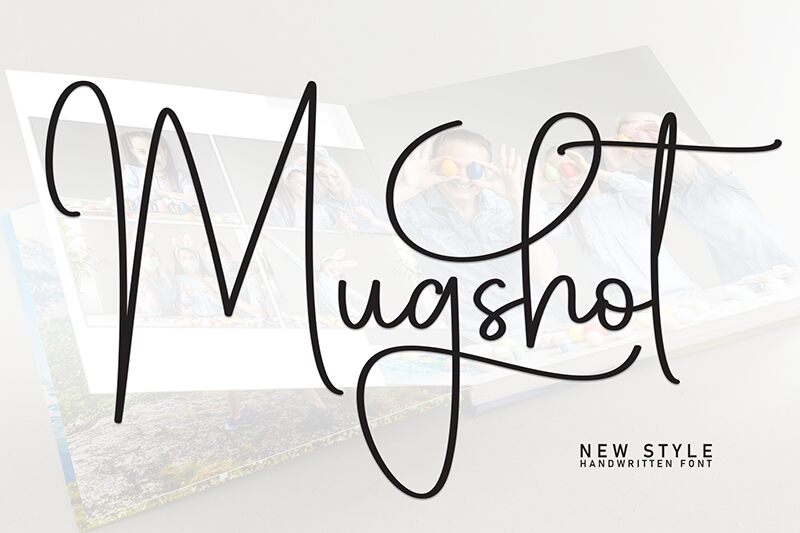
Mugshots
Mugshots font was designed by Scratchones with a handwritten style, light weight, and casual sophistication. The font’s elegant characters sprung to life with its easy going design while its whimsical flair complements the contemporary aesthetic it offers. From greeting card designs to apparel designs, this artistic touch can make any of your creations pop!